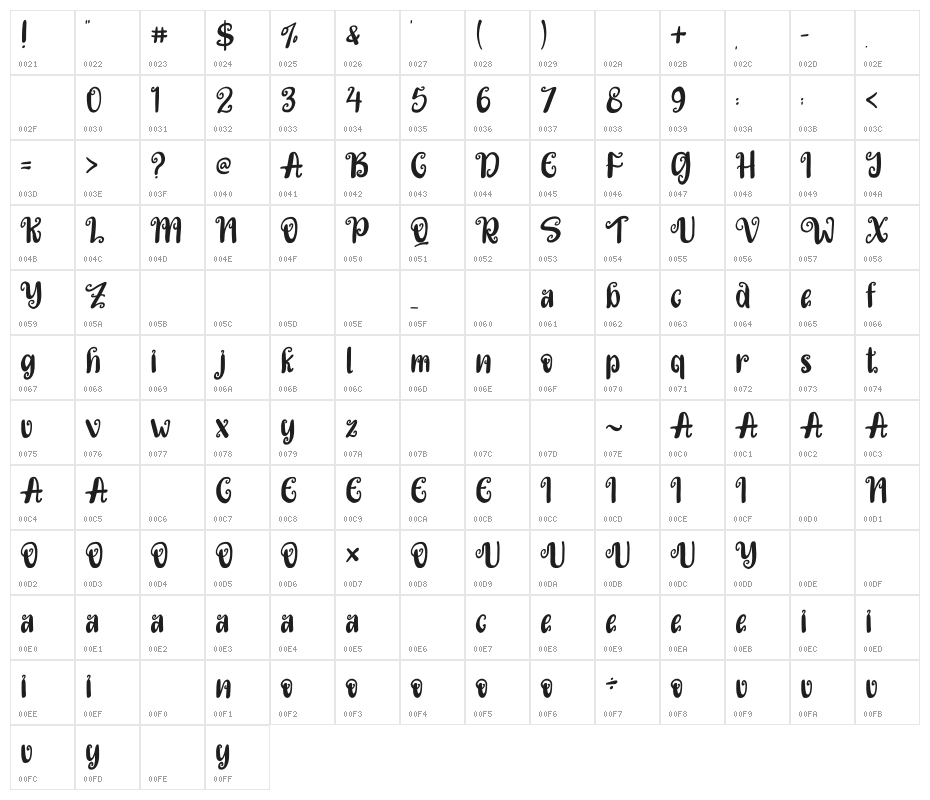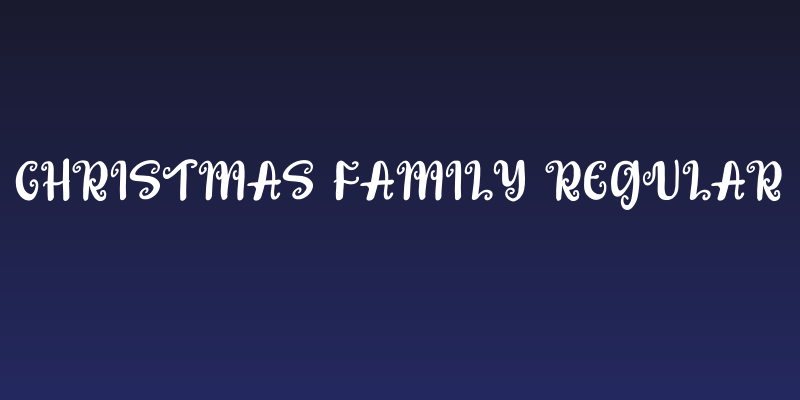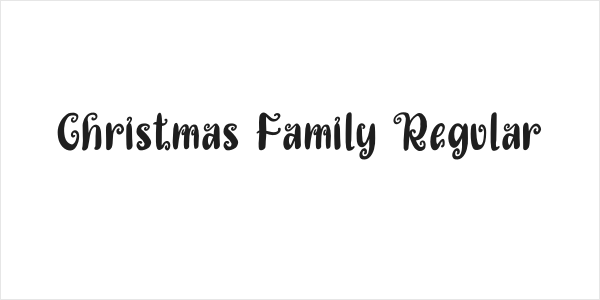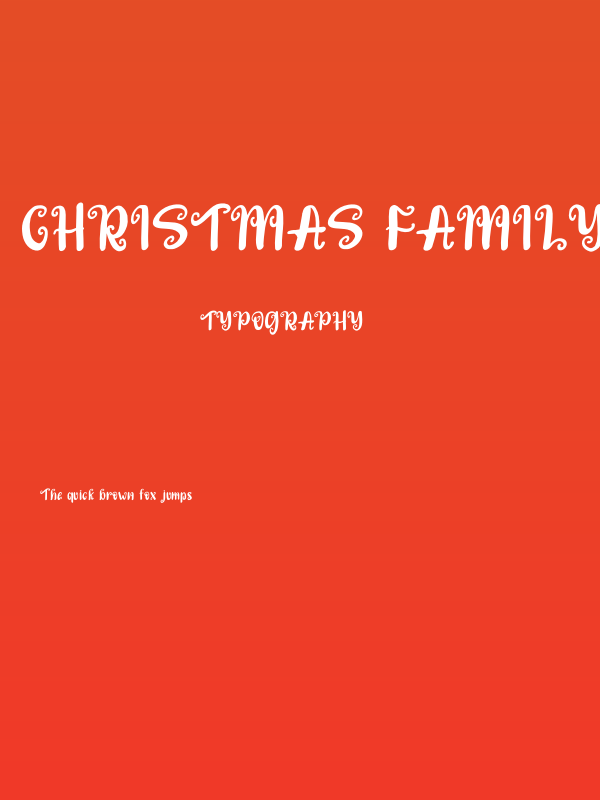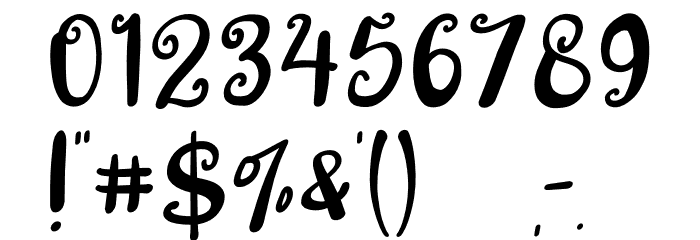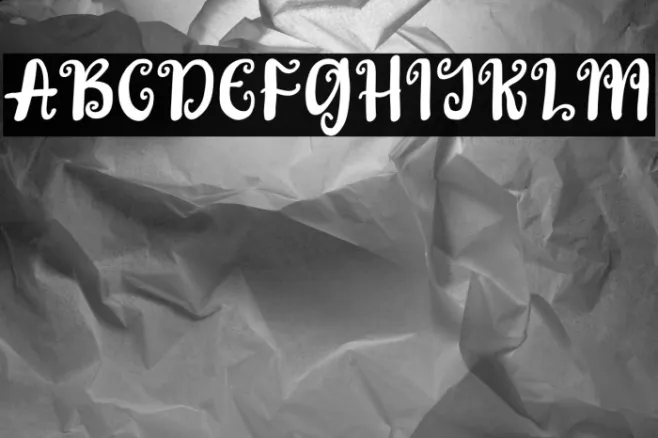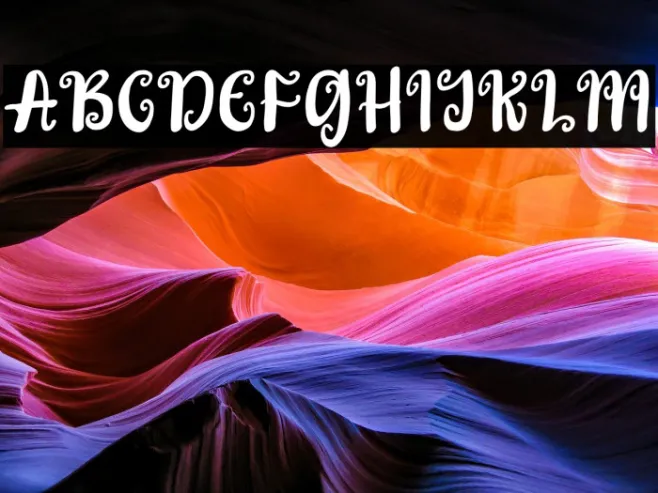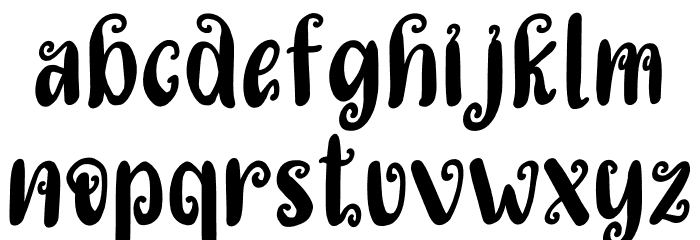
Christmas Family Regular Font
Christmas Family Regular Description
This font features a playful and whimsical style, characterized by its bold and rounded letterforms. The strokes are thick and consistent, giving it a strong presence on the page. Each character is adorned with subtle curls and swirls, adding a festive and decorative touch. The uppercase letters are slightly taller than the lowercase, maintaining a uniform width that ensures readability. The numerals are equally bold, matching the style of the alphabet. Special characters are creatively designed, enhancing the font's overall charm. This font is perfect for projects that require a joyful and lively aesthetic.
| Proposed Projects | Ideal for holiday cards, festive invitations, playful branding, and decorative posters. |